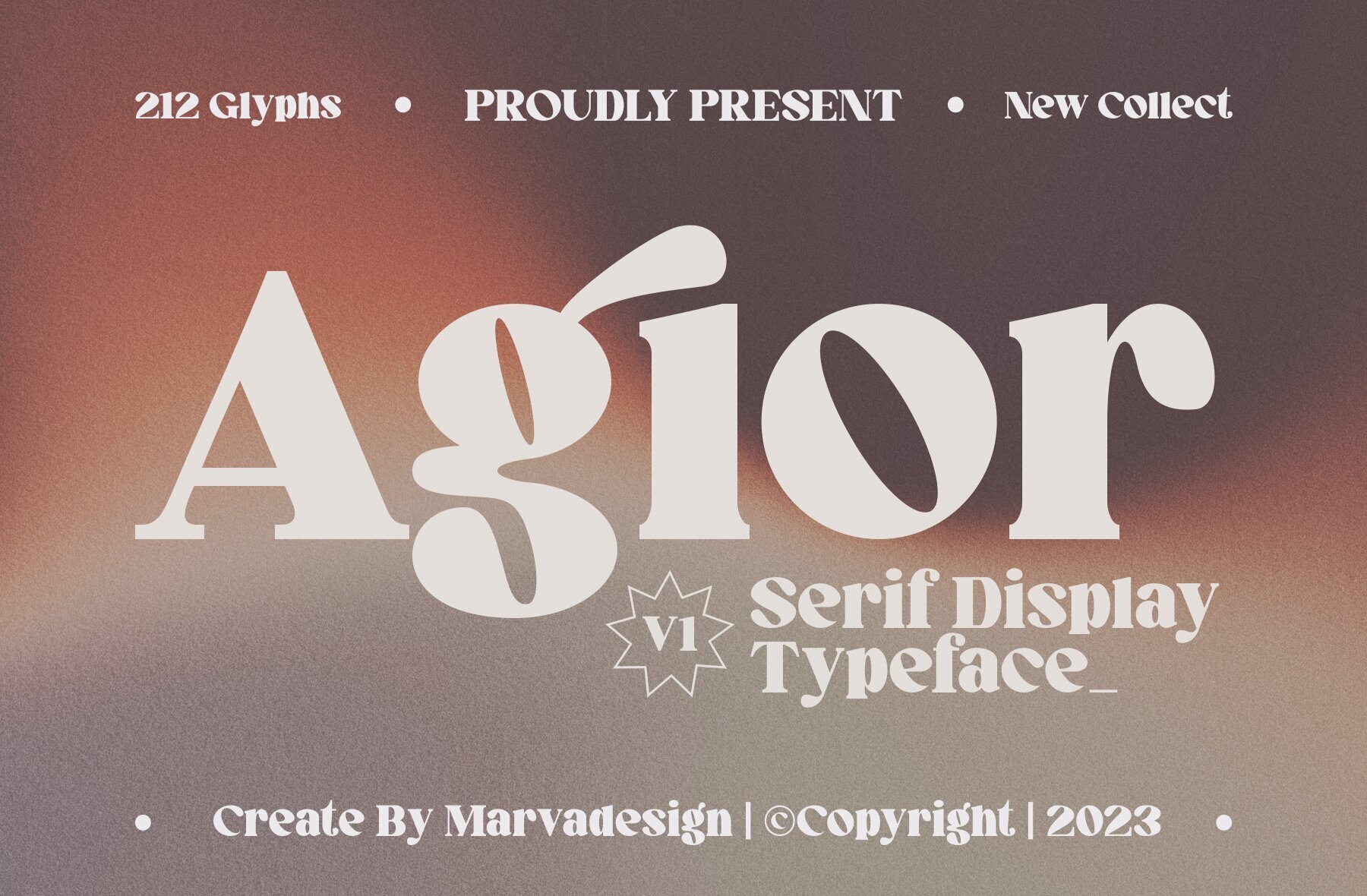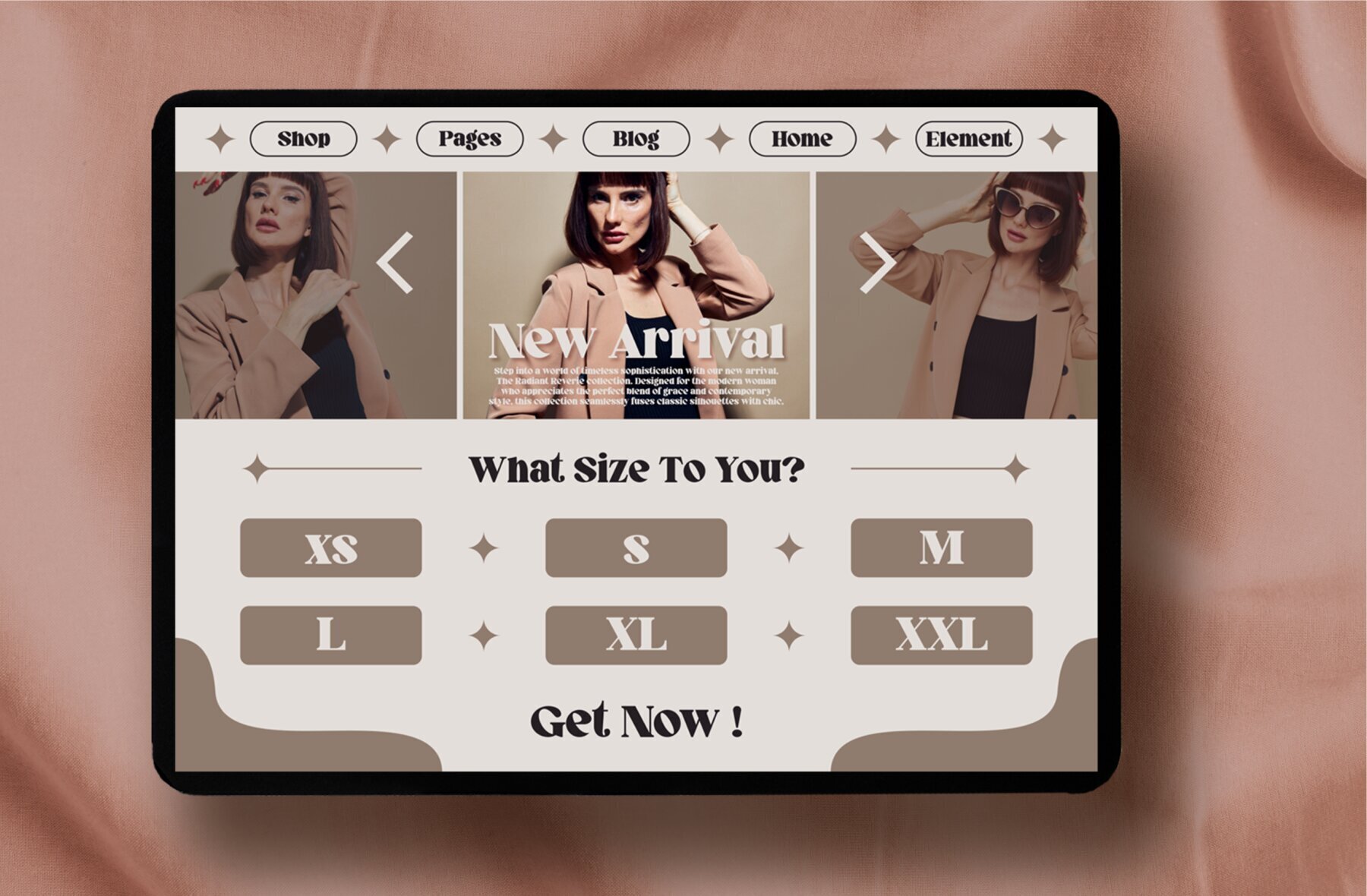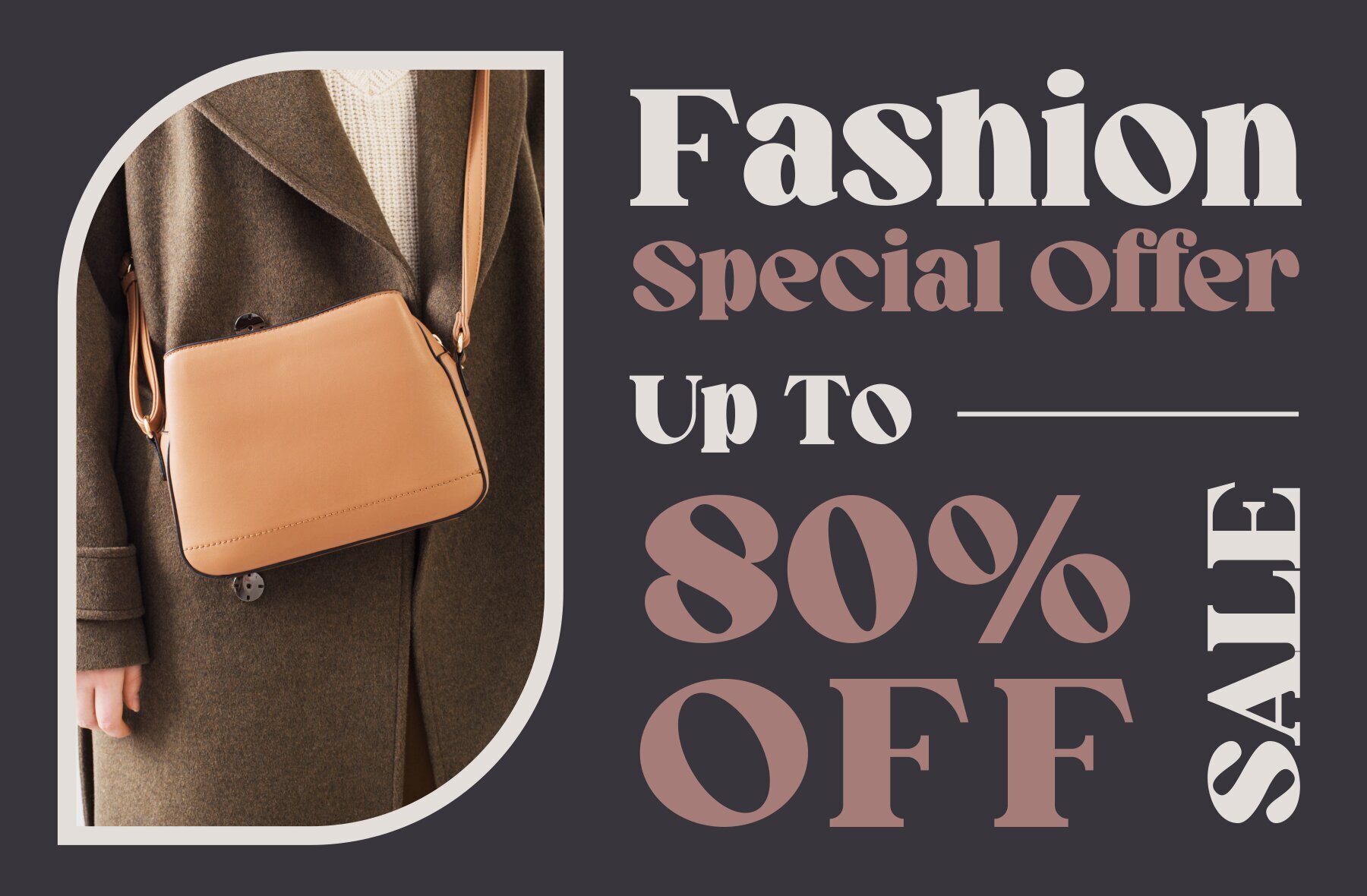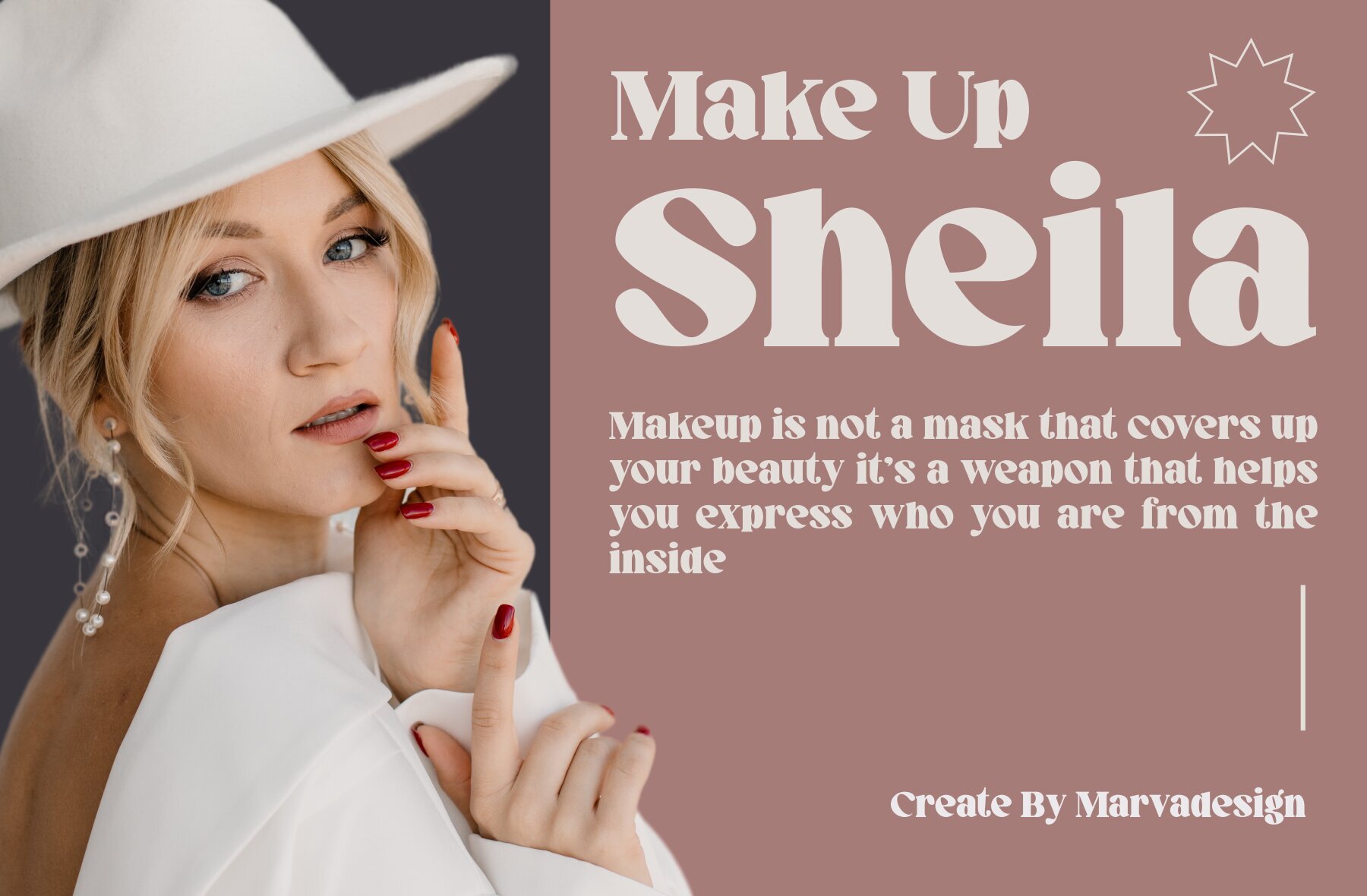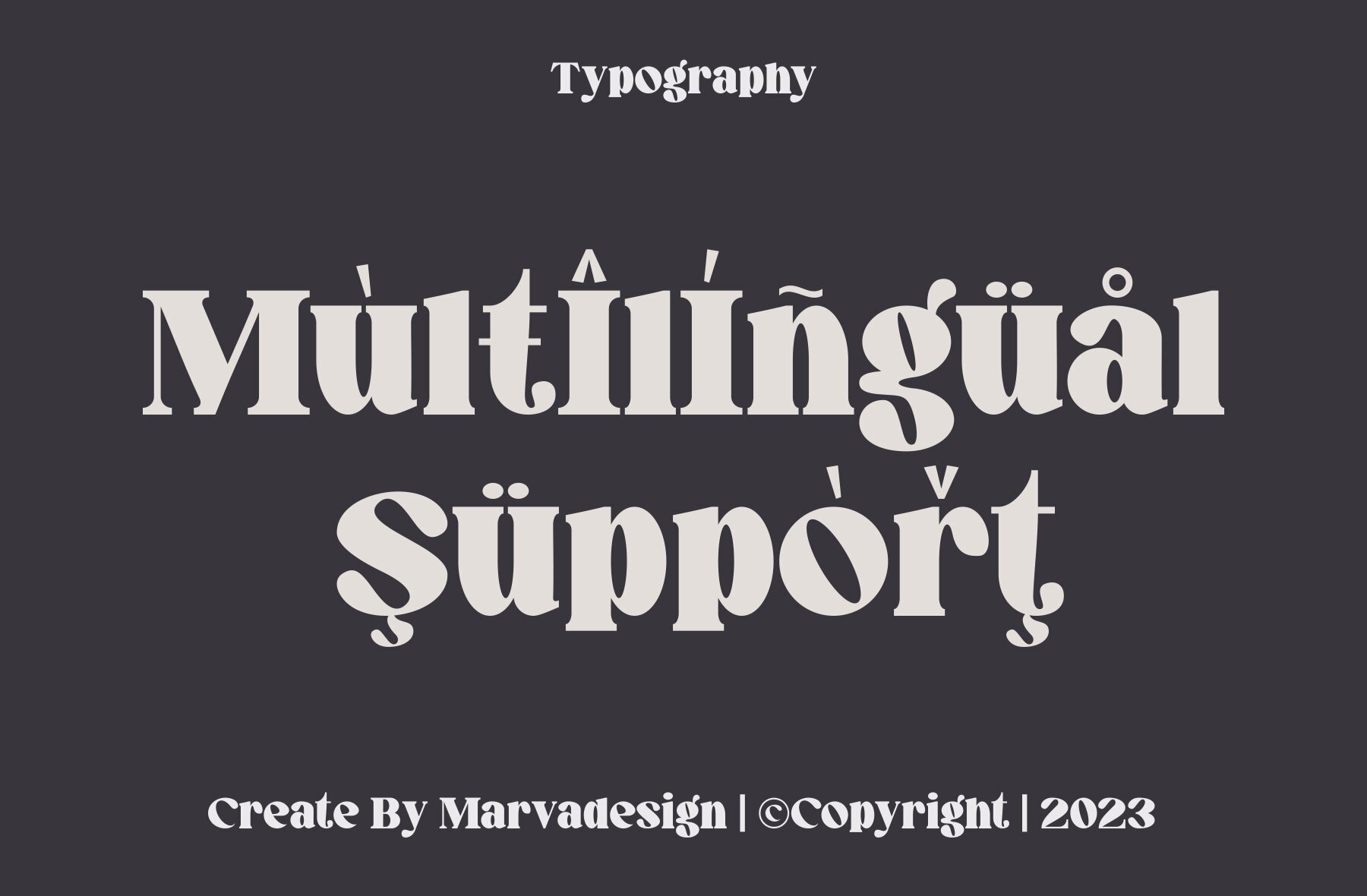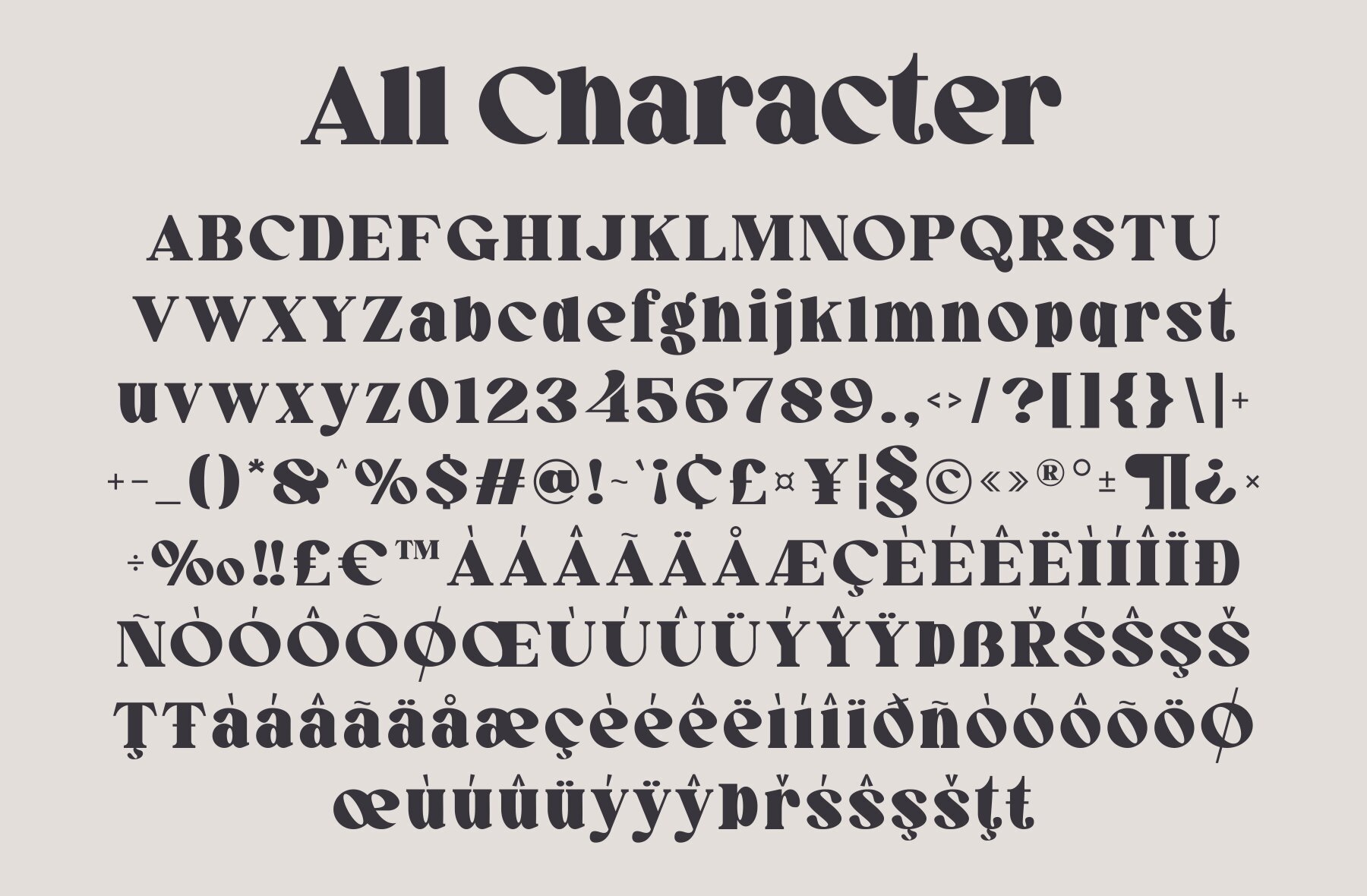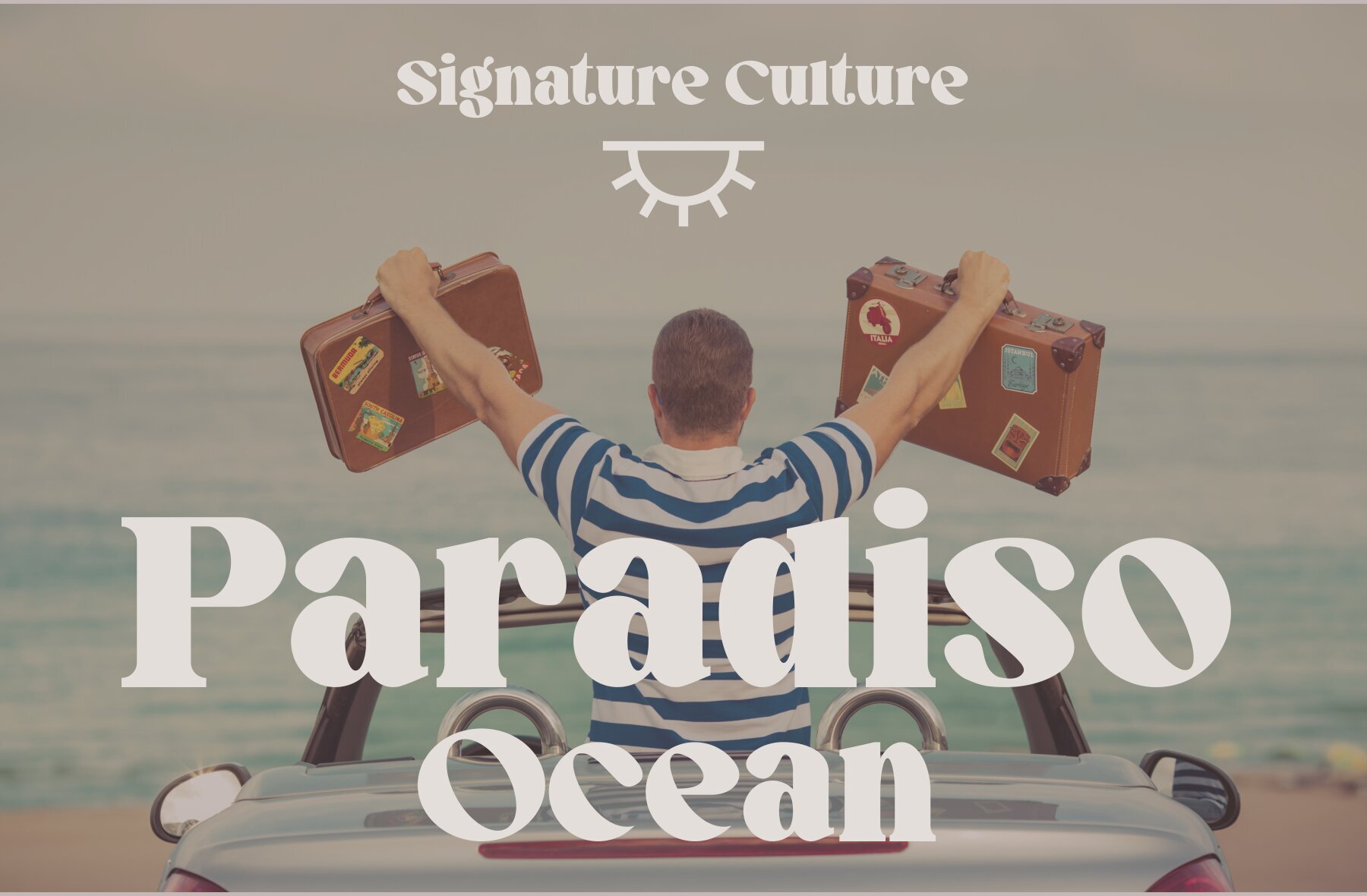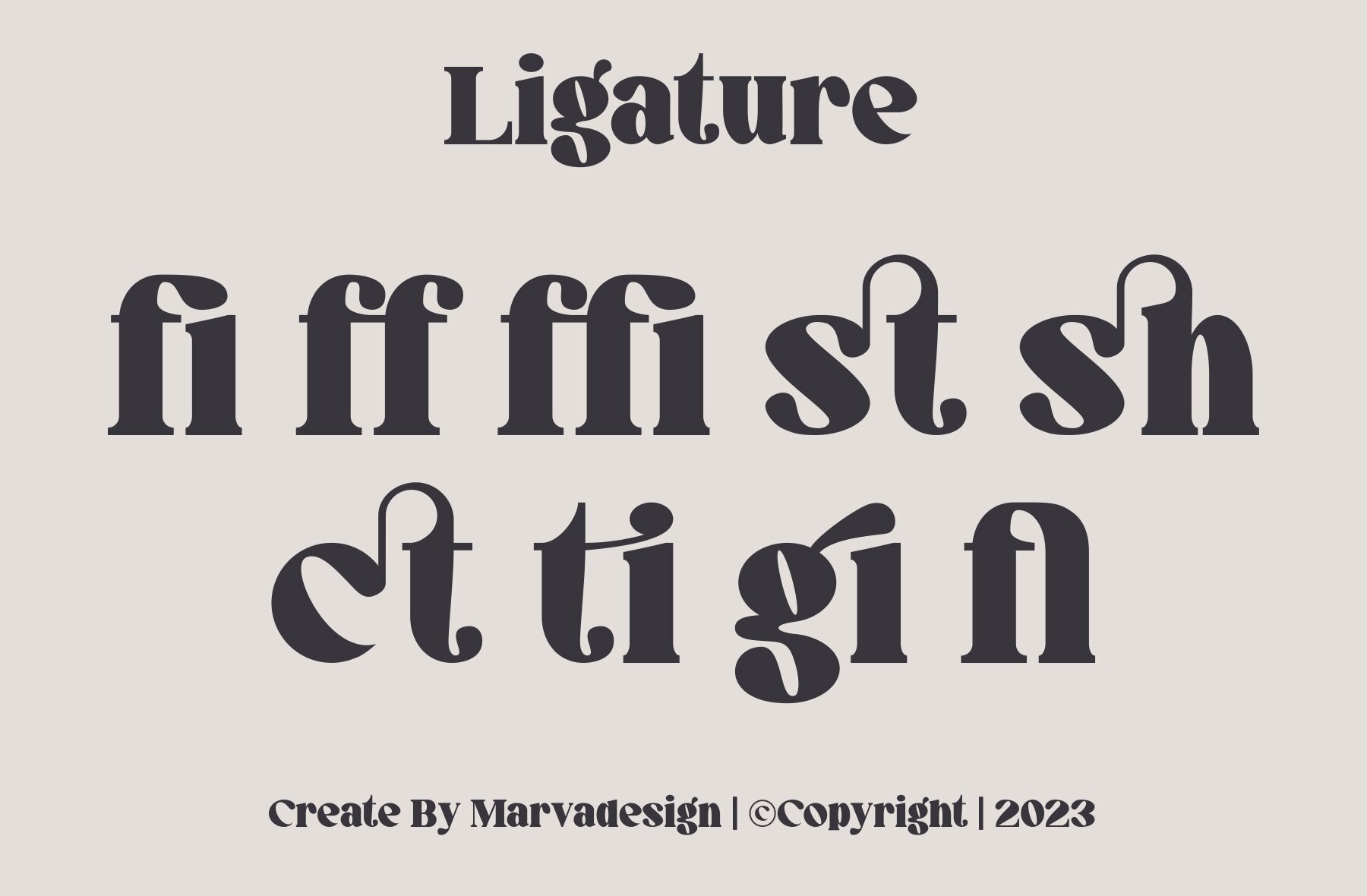
Agior Font
Agior
The Agior Font is an elegant serif typeface designed for authenticity and superior display. It is perfect for branding projects, including logos, template designs, and a variety of other applications. Agior stands out across diverse contexts, making it a versatile choice for designers.Agior: Elegant Serif Font for Versatile Branding